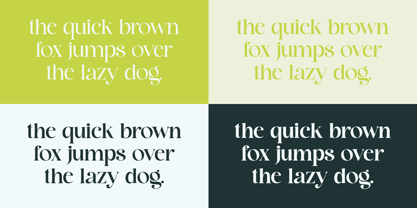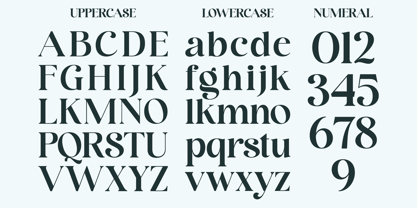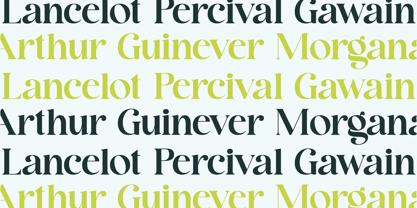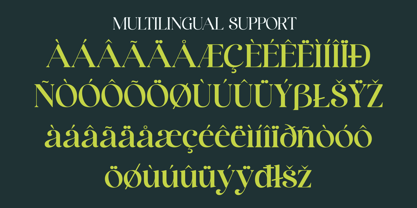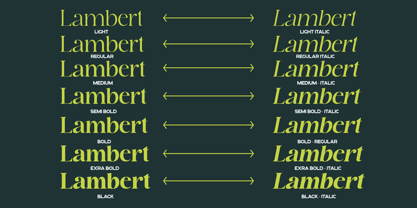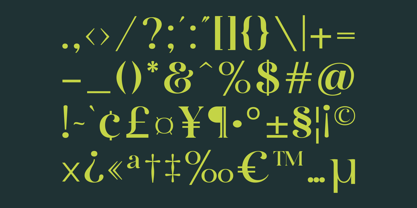
Ganos
by Marvadesign
The Ganos Font Family was designed by Febrie Setiawan and published by Marvadesign. Ganos contains 14 styles and family package options.
Ganos is a versatile serif display font, designed with a striking and distinctive visual appeal. It features a comprehensive family of styles, including Light, Light Italic, Regular, Italic, Medium, Medium Italic, Semi Bold, Semi Bold Italic, Bold, Bold Italic, Extra Bold, Extra Bold Italic, Black, and Black Italic.
This font's uniqueness lies in its sophisticated and elegant design, making it an excellent choice for a variety of creative projects. Ganos is particularly well-suited for use in posters, magazines, websites, and industries like fashion, jewelry, and more. Its combination of style variations ensures adaptability to both classic and modern design needs, offering designers a tool to elevate their visual communication
Designers: Febrie Setiawan
Publisher: Marvadesign
Foundry: Marvadesign
Design Owner: Marvadesign